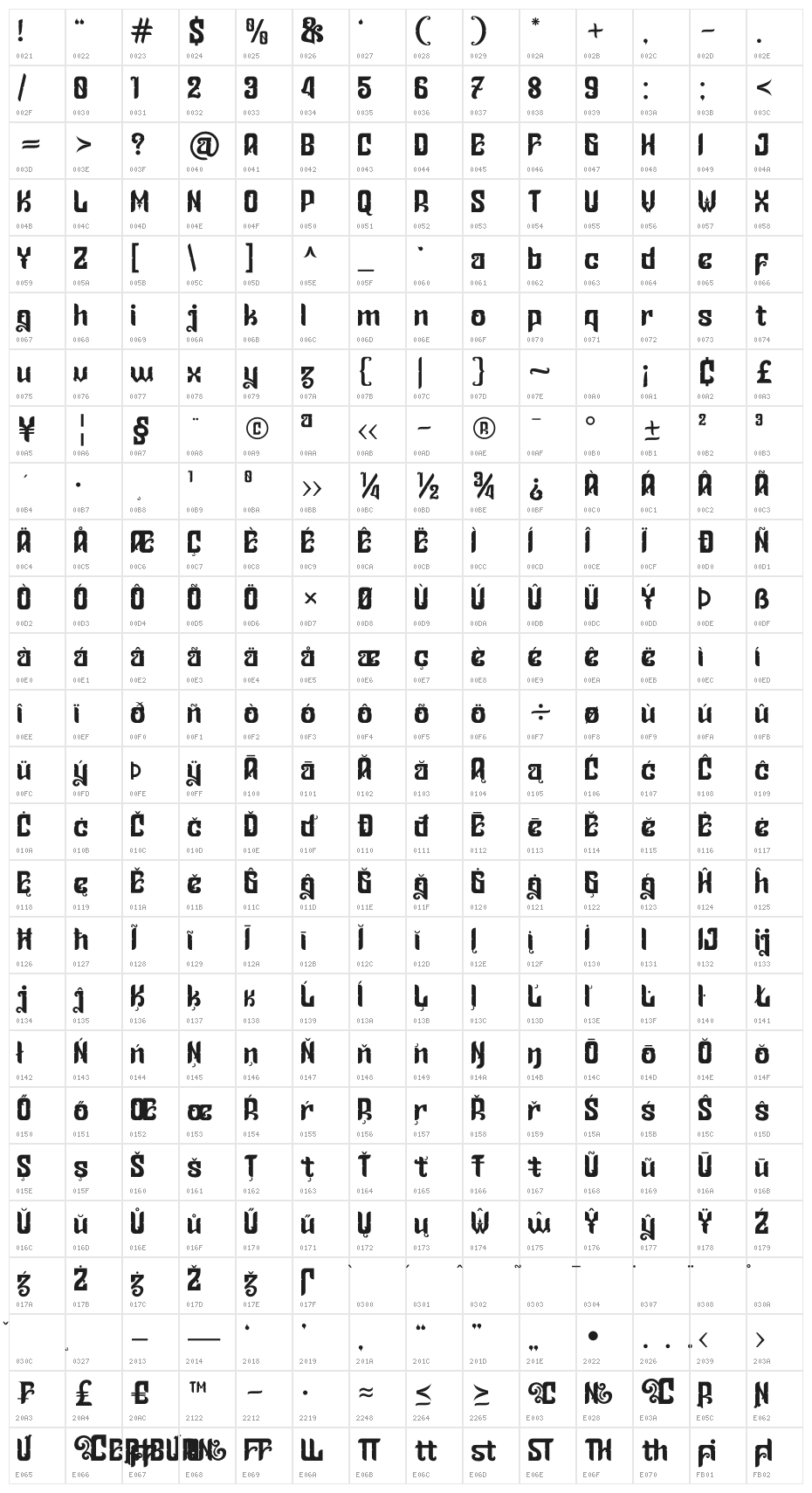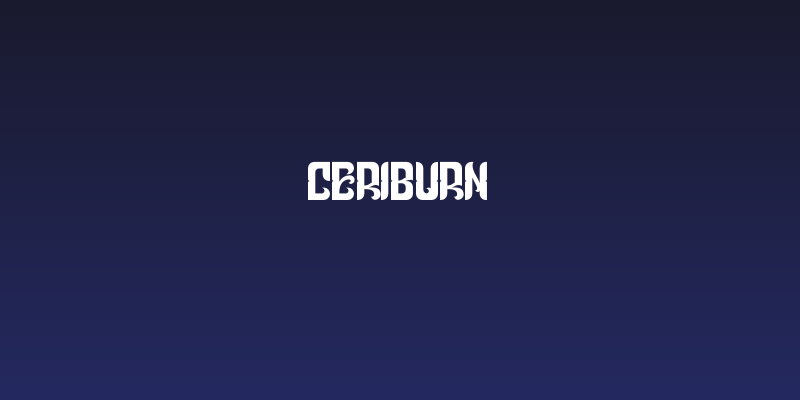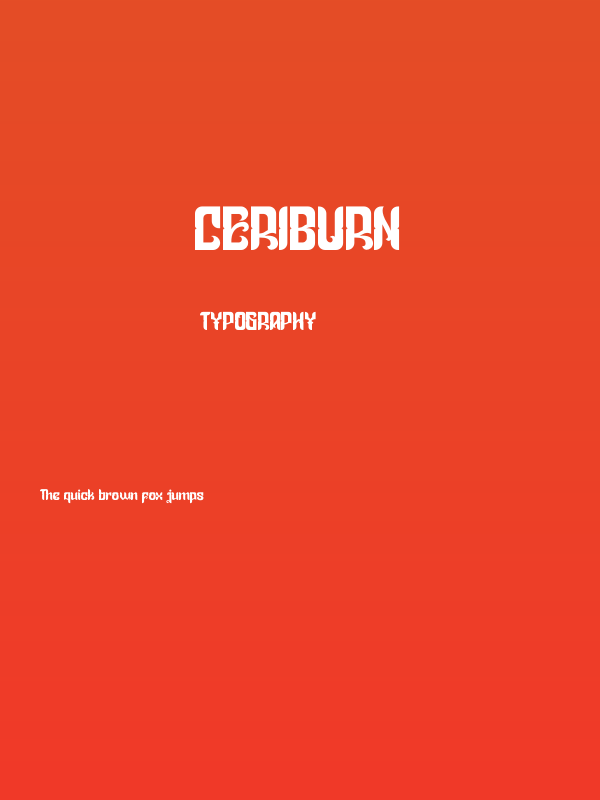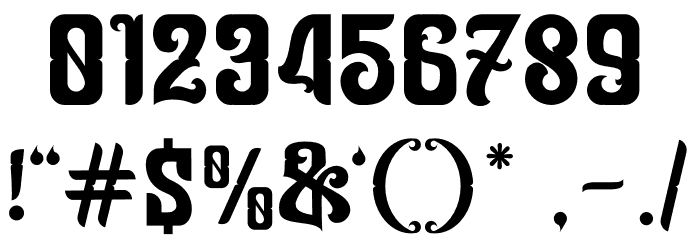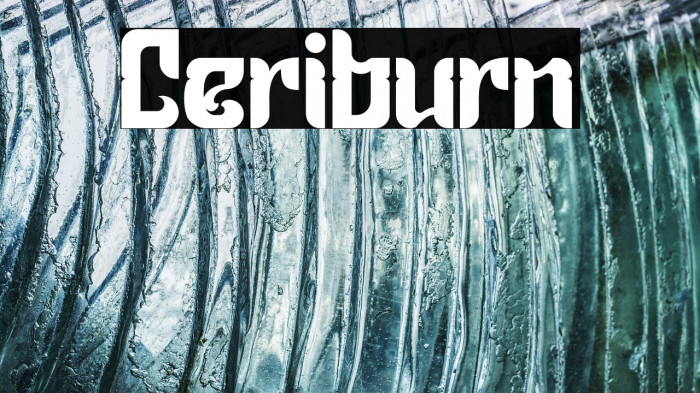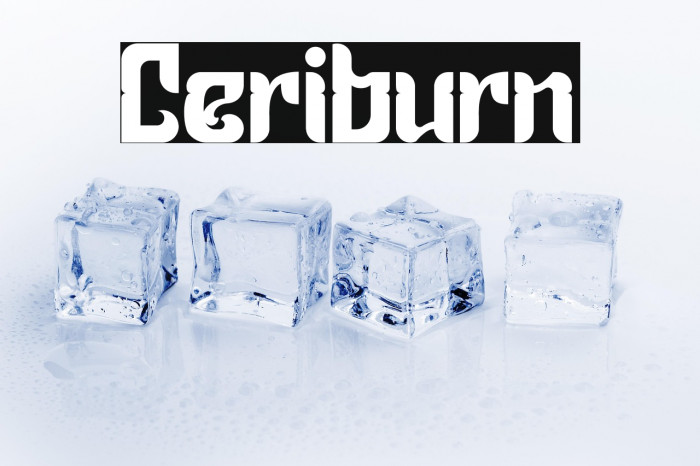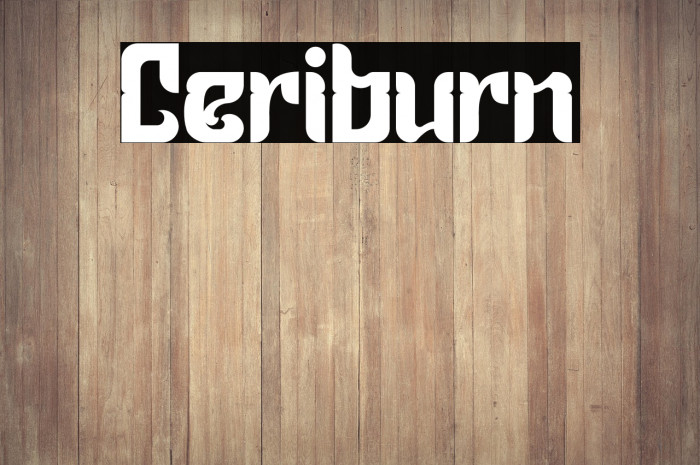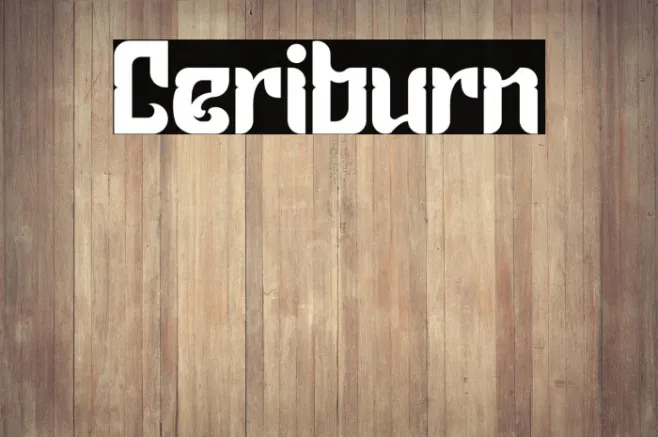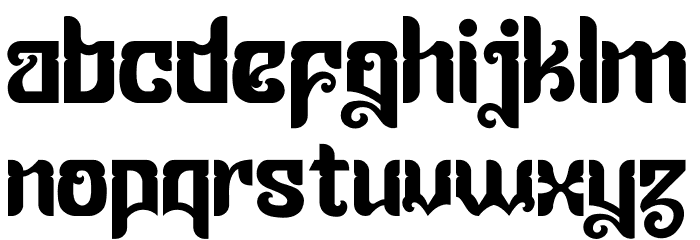
Ceriburn Font
Ceriburn Description
This font features a bold and decorative style with intricate details that give it a unique and artistic flair. The uppercase letters are characterized by strong, angular lines and ornate embellishments, while the lowercase letters maintain a similar decorative theme with slightly softer curves. The numbers are bold and consistent with the overall style, making them stand out. Special characters are creatively designed, adding to the font's distinctiveness. The font's high contrast between thick and thin strokes enhances its visual impact, making it suitable for eye-catching designs.
| Proposed Projects | Ideal for logos, posters, album covers, and any project requiring a striking and artistic typeface. |